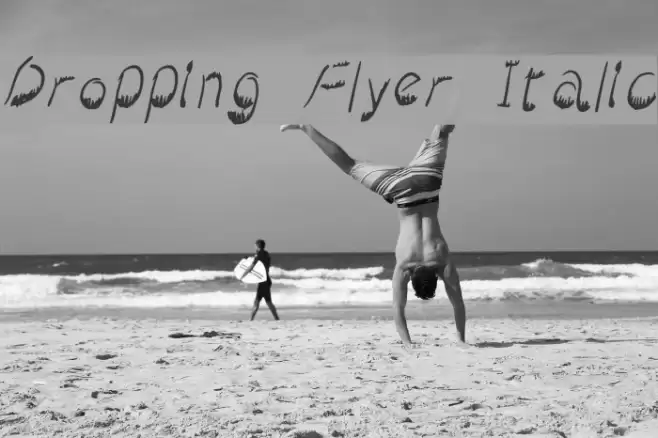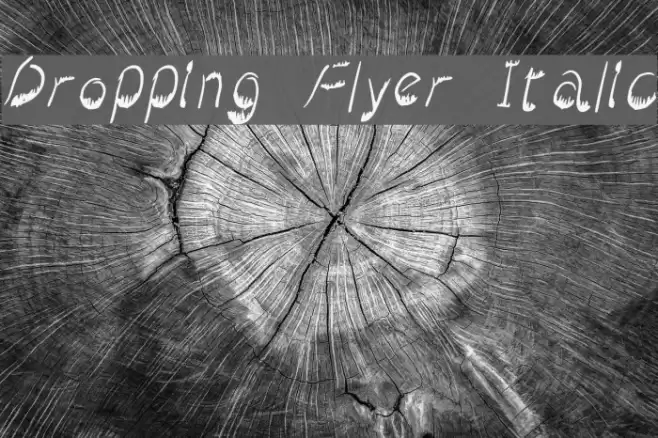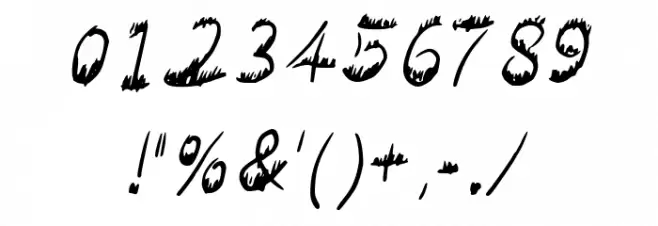
Dropping Flyer Italic Font
Dropping Flyer Italic Description
This font features a dynamic and energetic style with a distinct italic slant. The characters have a unique, jagged appearance that gives an impression of movement and spontaneity. The strokes are uneven, with some parts appearing thicker and others thinner, creating a sense of texture and depth. The uppercase and lowercase letters maintain a consistent style, with the lowercase letters being slightly more compact. Numbers and special characters follow the same aesthetic, ensuring uniformity across all glyphs. This font is ideal for projects that require a bold and unconventional look, capturing attention with its striking design.
An energetic, italic font with jagged, textured strokes from Uncategorized fonts.